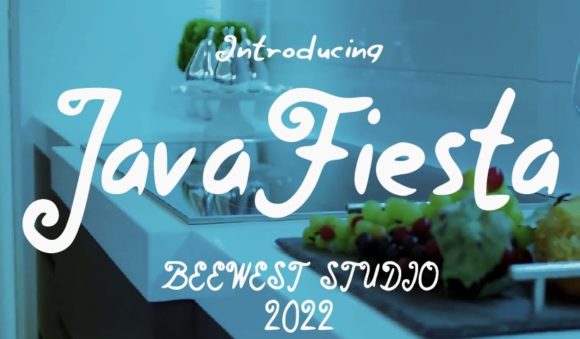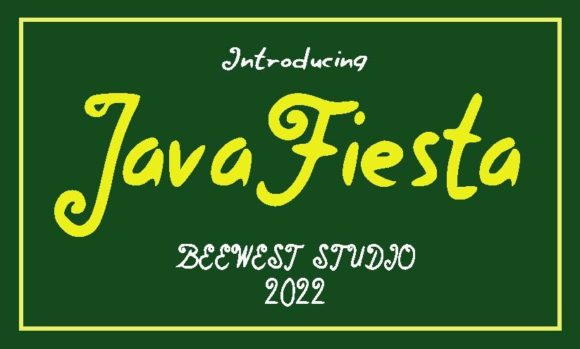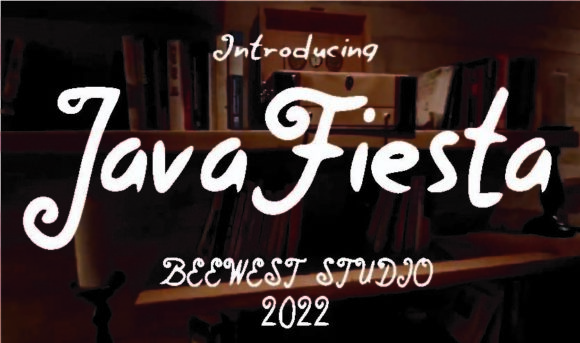
Introduction to Java Fiesta Font
Have you ever been brainstorming ideas for a creative project and suddenly, the perfect font pops into your head, taking your entire concept to the next level? For designers, this moment is pure magic. It’s the spark that ignites a brilliant idea, and the Java Fiesta Font is one such magical discovery. This vintage styled and chic script font is a game-changer for any branding project, from logos to t-shirt printing, and creative products in between.
As a valuable design resource, the Java Fiesta Font offers an unbeatable combination of style and versatility. Its unique charm can be paired with a transparent background to create a high-quality visual effect that will make your design stand out. Whether you’re working on a free download or a paid project, this font is sure to bring a touch of sophistication and elegance to your work.
Key Features of Java Fiesta Font
- High-quality design resource suitable for creative projects requiring a vibrant and playful aesthetic.
- Unique characteristics include a bold, cursive style with intricate details and ornaments, perfect for adding a touch of whimsy to creative projects.
Honest Review: Java Fiesta Font
As a designer, I’ve come across my fair share of fonts, but the Java Fiesta Font has definitely caught my attention. The high quality and unique design make it a great addition to any creative project.
- Its transparent background allows for seamless integration with any background image or color.
- The font’s playful and energetic vibe is perfect for projects that need a fun and lively feel.
- ⚠️ The font’s character set is somewhat limited, which may not be suitable for projects that require a wide range of characters.
- ⚠️ The font’s bold and italic styles can be a bit inconsistent, which may require some adjustments in design.
Overall, I’m quite impressed with the Java Fiesta Font. It’s a great addition to any designer’s toolkit and can definitely elevate a project’s visual appeal. While it has some limitations, I believe the benefits far outweigh the drawbacks.
Tips for Getting the Most Out of Java Fiesta Font
Use the Java Fiesta Font in conjunction with a transparent background to give your design a unique look. Experiment with different font sizes and styles to create a visually appealing design.
Common Use Cases for Java Fiesta Font
The Java Fiesta Font is a versatile font that can be used in a variety of creative projects, including logos, business cards, and social media graphics. It is also a great font to use when creating a high-quality design for a free download.
Can I customize the Java Fiesta Font to suit my design needs?